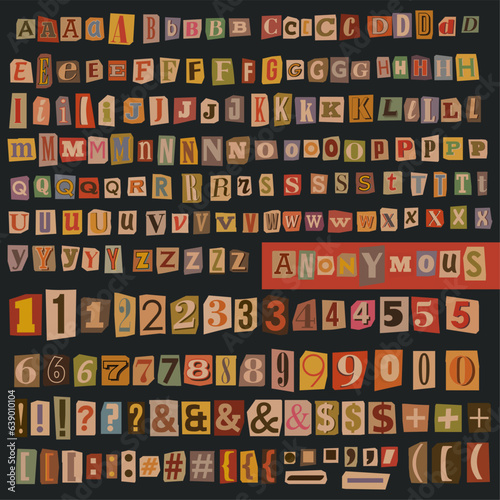
Blackmail Ransom Anonymous Kidnapper Note Font Letters, Numbers and symbols. Collage Newspaper and magazine letters alphabet. Ransom note. Color retro paper style. Vector design elements ransom note